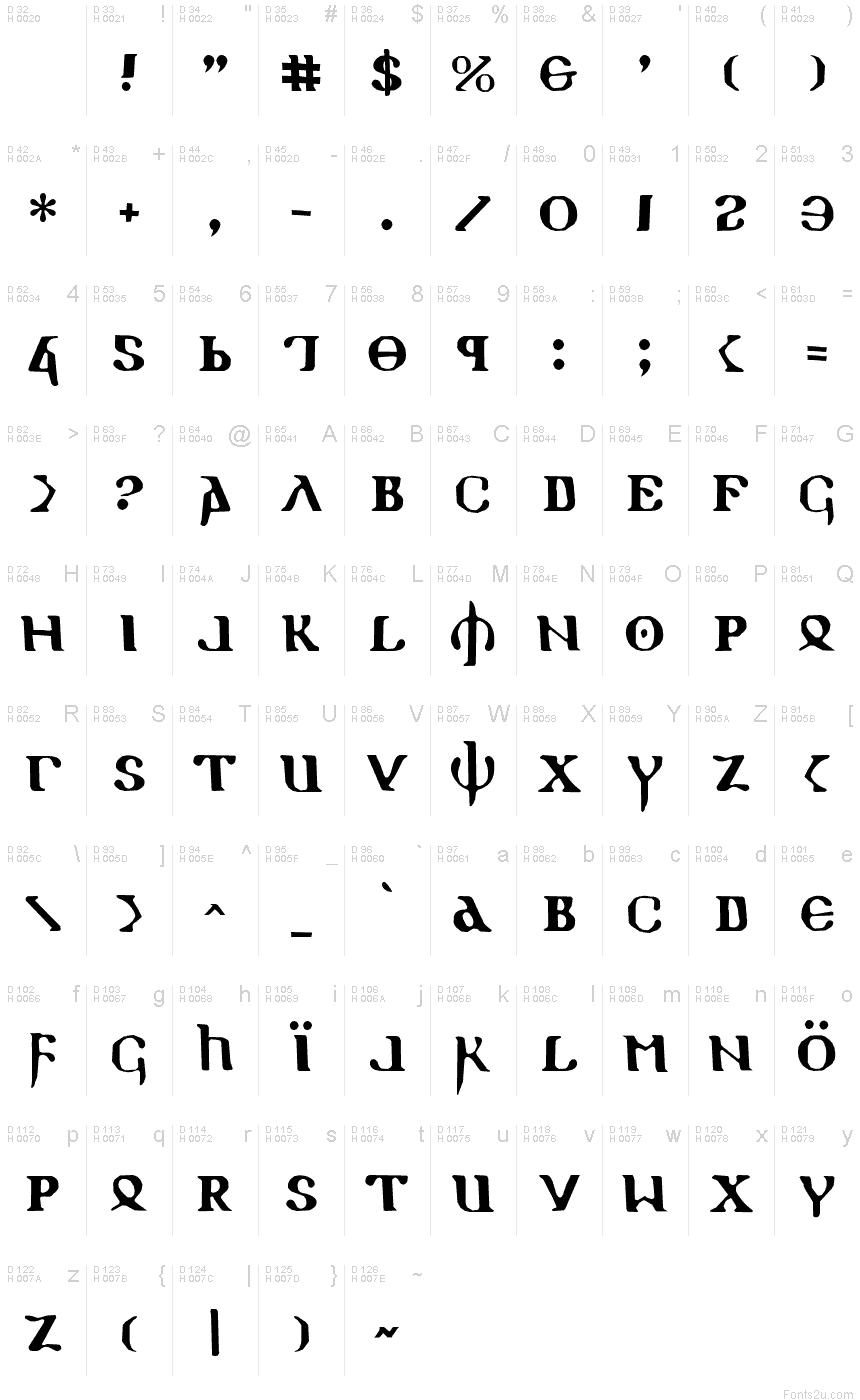
Holy Empire
Holy Empire font by Iconian Fonts is a free retro display typeface that feels like it’s been stamped straight out of an old fantasy map or medieval broadside. The chunky, slightly irregular letterforms have a carved, ink-heavy texture that suggests worn woodblocks and candlelit script, while the tight spacing keeps words looking bold and unified. There’s a touch of drama in every curve, but it never tips into clutter or chaos.
Using Holy Empire, titles instantly pick up a mythic, storybook weight that works beautifully for fantasy book covers, tabletop RPG manuals, festival or concert posters, tavern or pub branding, band merch, and vintage-inspired packaging. This free font pairs well with a clean geometric sans in smaller sizes, letting Holy Empire handle the loud, characterful headlines while the companion typeface keeps body text crisp and readable.